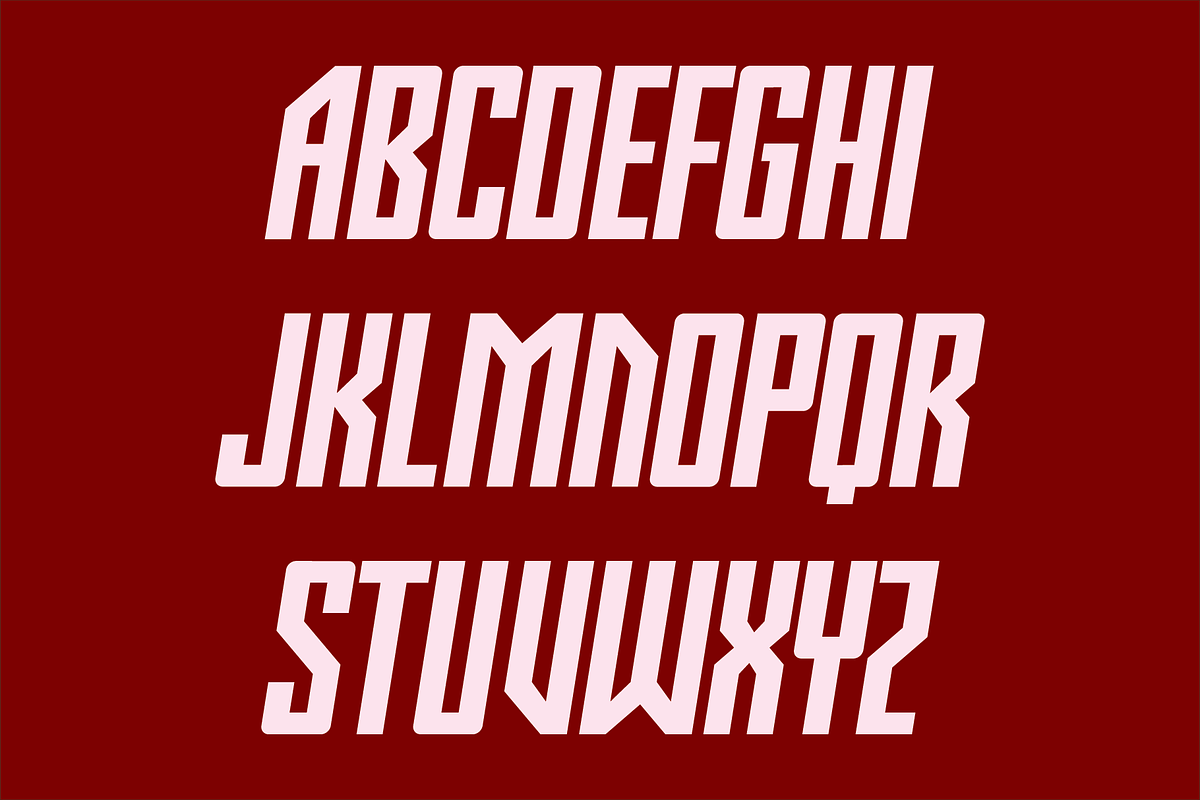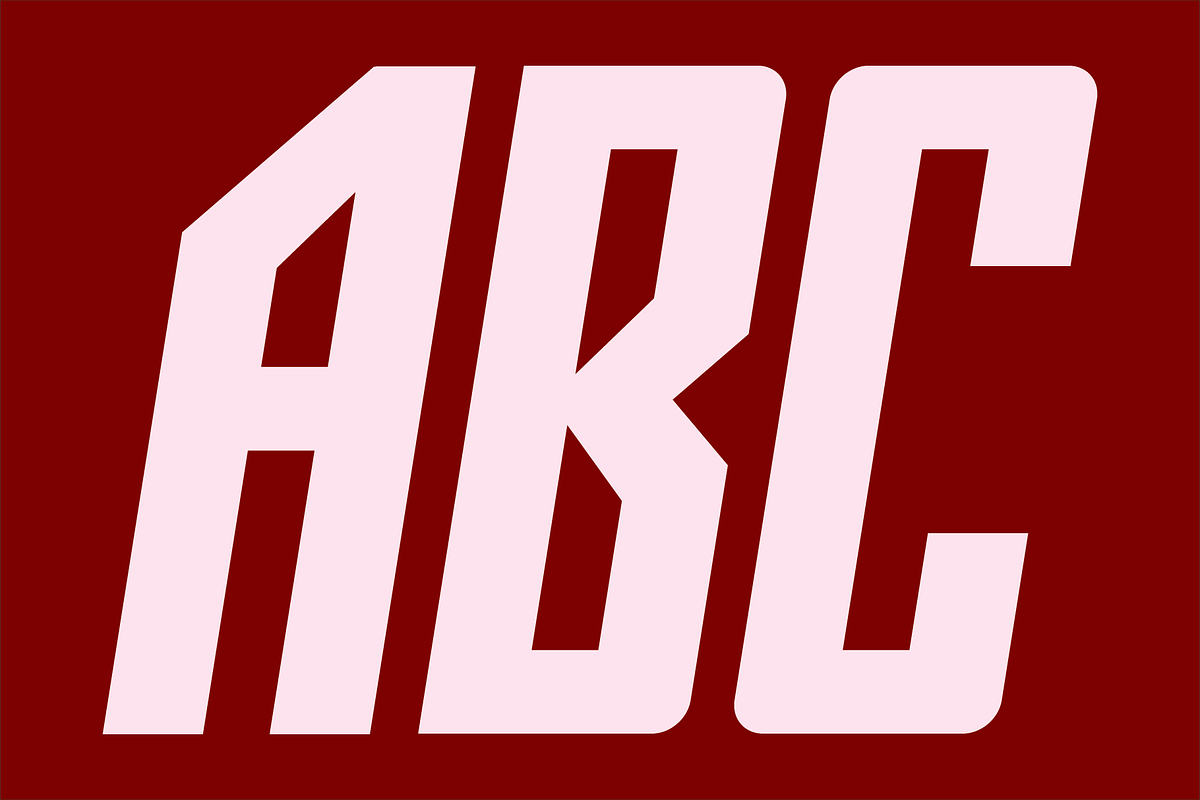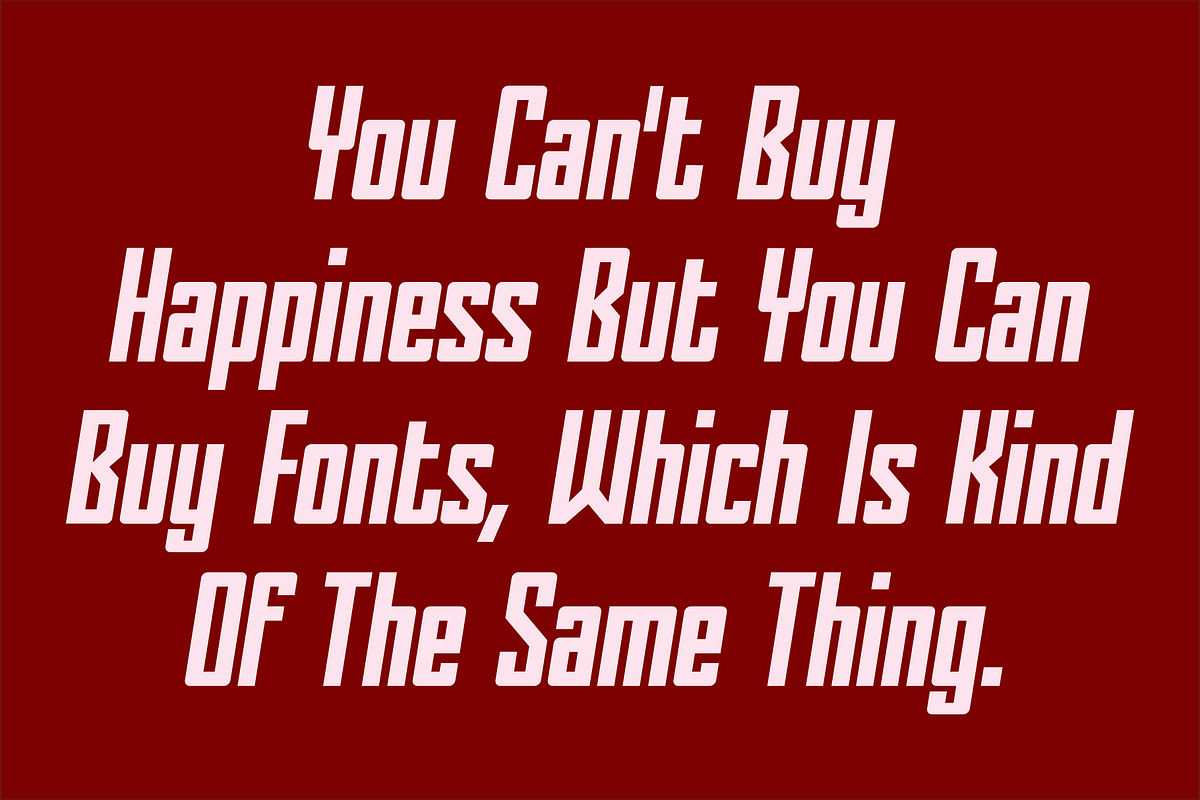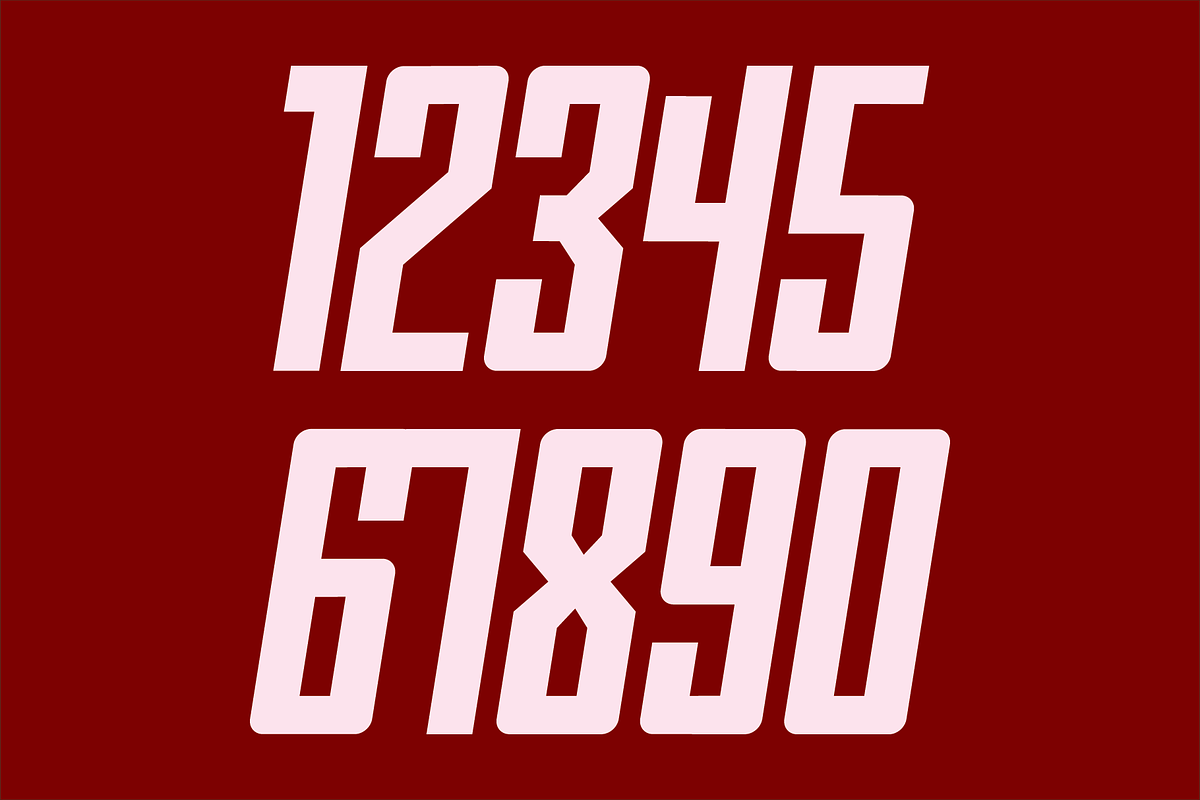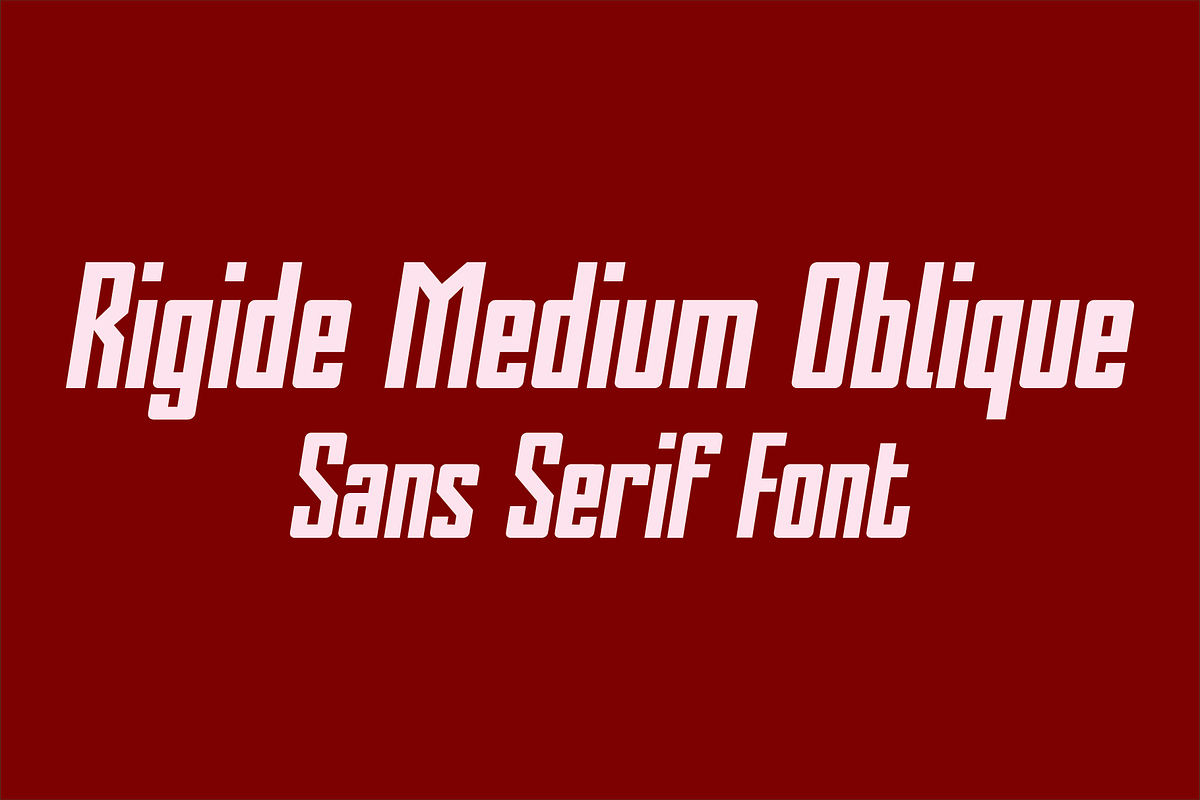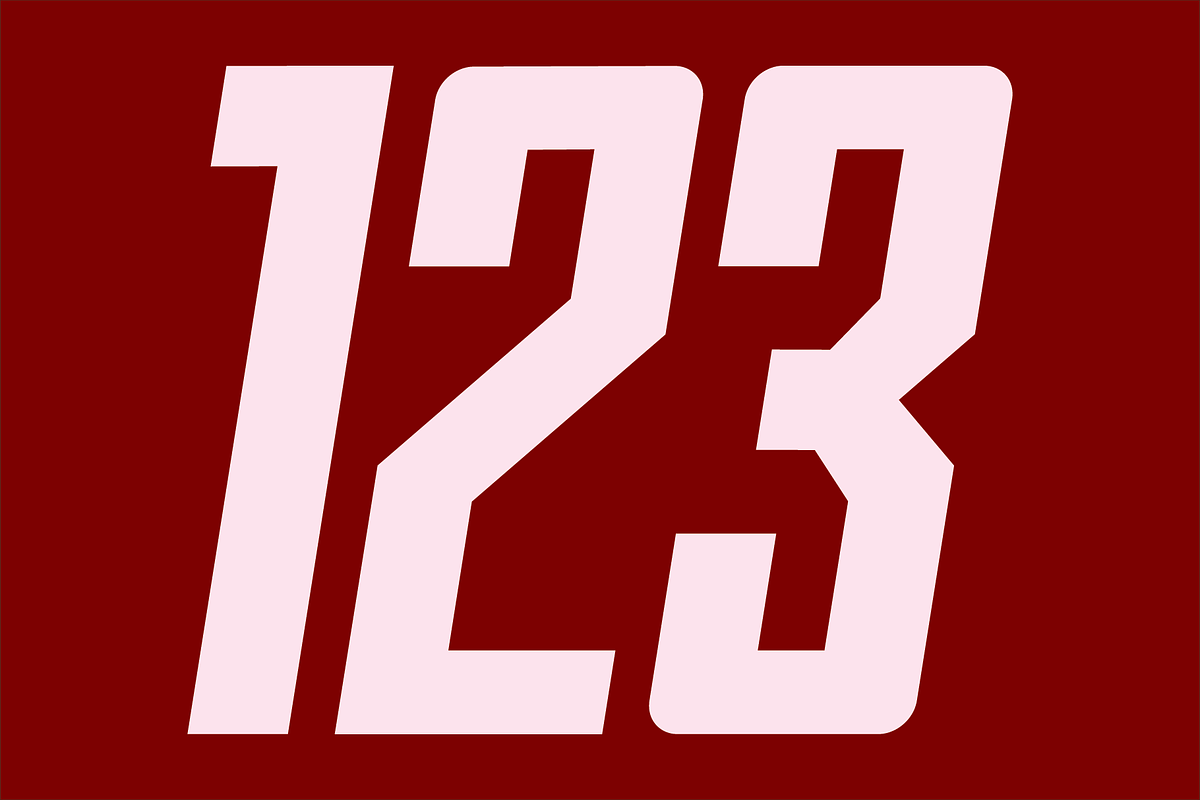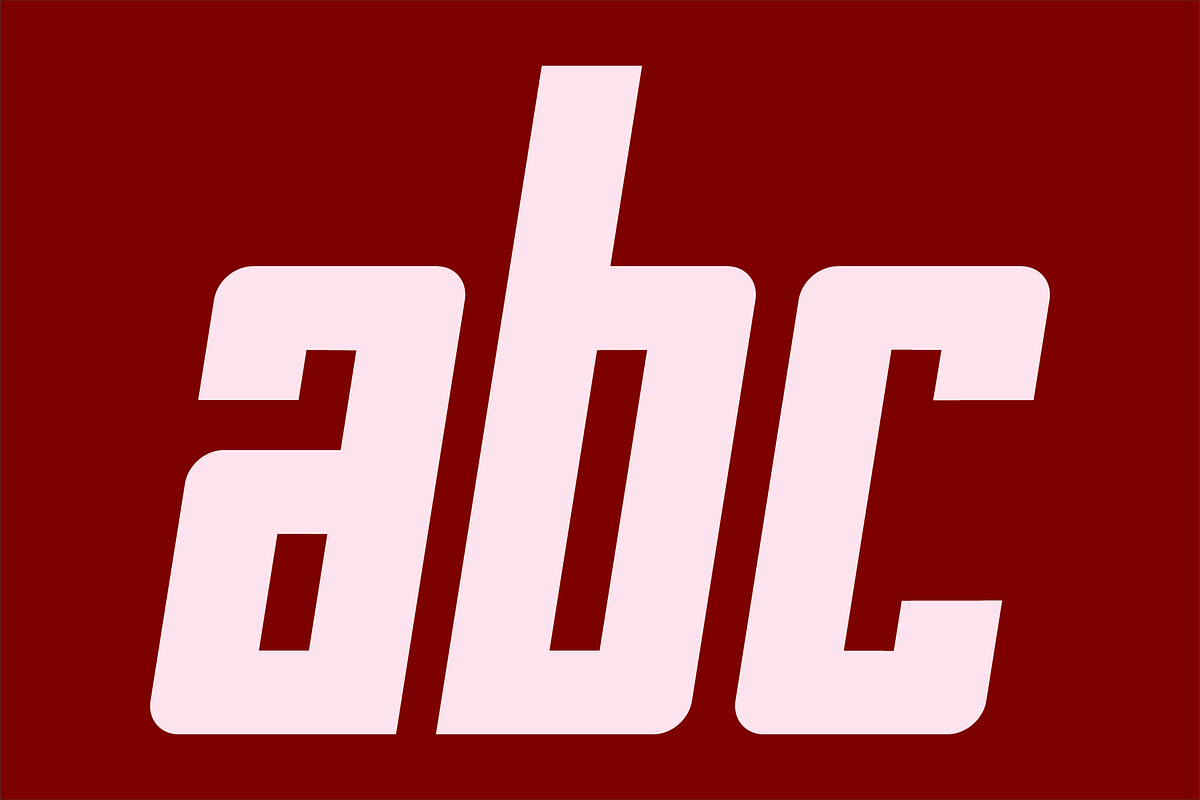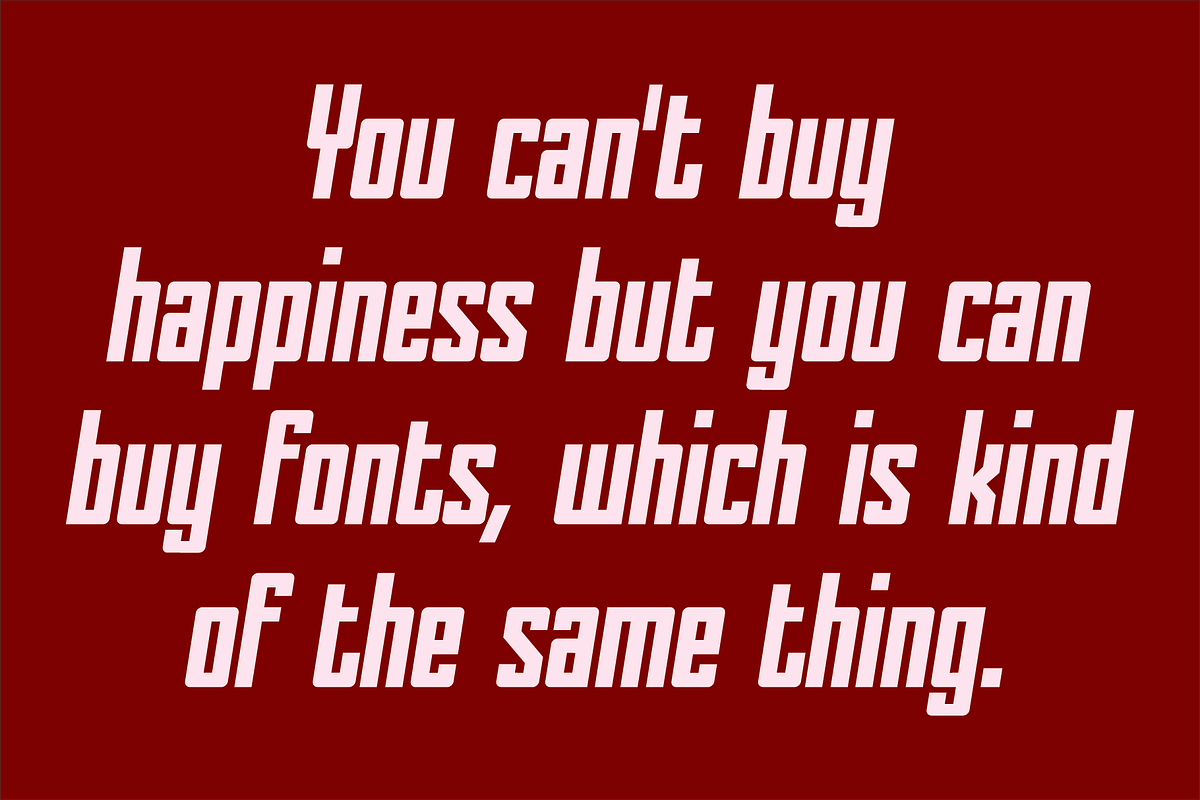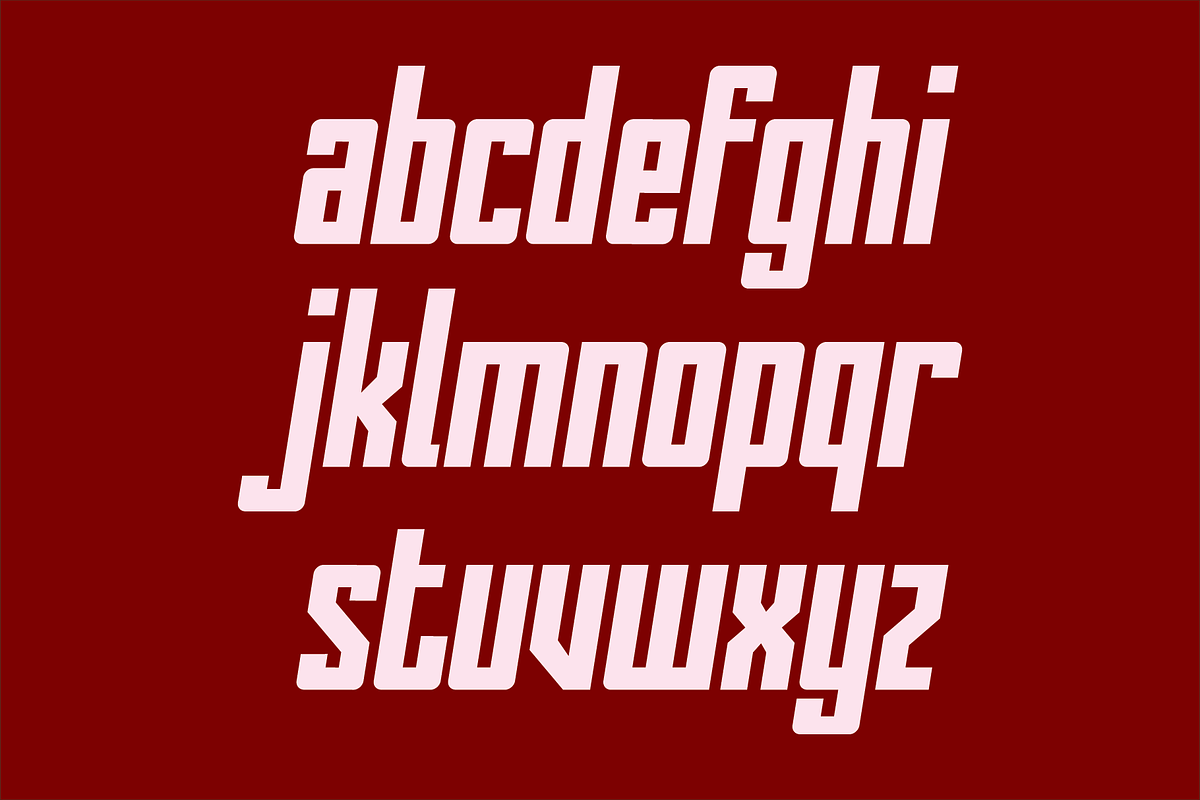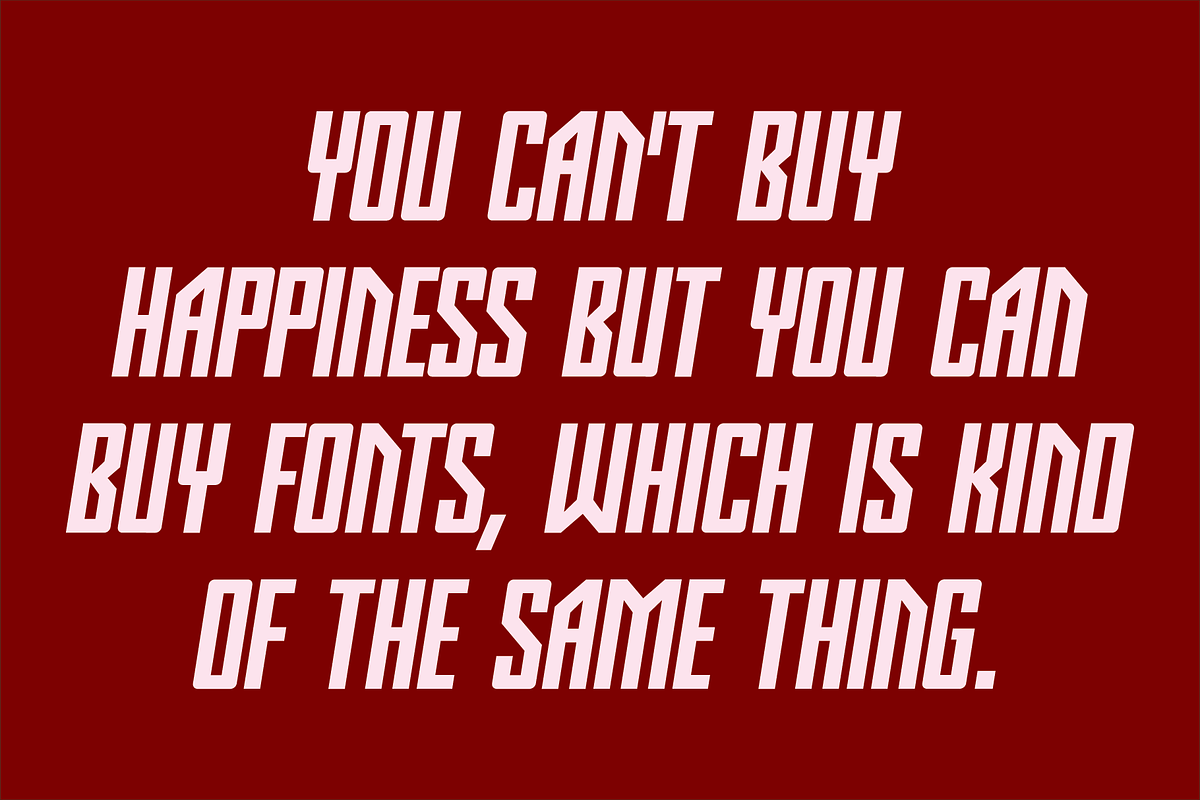
Rigide Medium Oblique - Sans Serif
Rigide Medium Oblique is a clean, contemporary, geometric, condensed oblique sans serif font. It is ideal for headlines, titles, branding and small blocks of text.